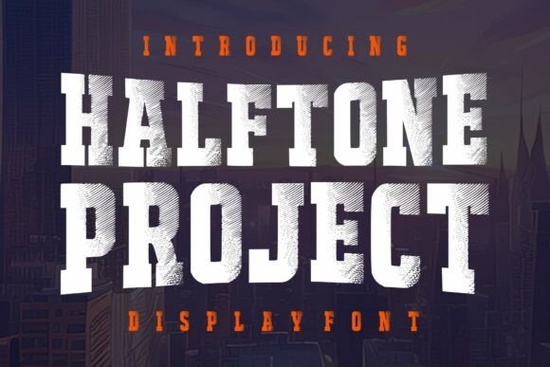
Halftone Project Font is a standout choice for designers looking to add a vintage, industrial flair to their work. This bold slab serif font combines strong, blocky letterforms with a unique halftone texture that mimics traditional printing methods. The result is a typeface that feels both classic and modern, perfect for creating eye-catching headlines and impactful designs.
The Halftone Project font is ideal for projects that need a strong visual presence. Its textured appearance adds depth and character, making it stand out in both digital and print formats. Whether you're working on a poster, logo, or social media graphic, this font can help elevate your design with its distinctive style. It works especially well when paired with clean backgrounds, allowing the intricate dot patterns to take center stage.
Designed with creatives in mind, Halftone Project is suitable for a wide range of applications. From sports branding and university merchandise to “lo-fi” aesthetic designs, this font brings a sense of history and authenticity to any layout. Its retro-industrial feel makes it a great fit for vintage or retro-themed projects, while its bold nature ensures it remains relevant in contemporary design trends.
What Makes Halftone Project Unique?
One of the key features of Halftone Project is its built-in halftone effect. Unlike other fonts that require additional textures or overlays, this typeface includes the halftone pattern directly in its design. This means you can use it straight out of the box without extra steps, saving time and effort in your workflow.
The font’s slab serif shapes give it a strong, confident look, while the halftone dots add a layer of complexity and visual interest. This combination creates a balance between simplicity and detail, making it versatile enough for different design styles. Whether you're going for a clean, minimalist approach or something more intricate, Halftone Project can adapt to your needs.
Another advantage of this font is its scalability. It shines best at larger sizes where the halftone details are fully visible. This makes it an excellent choice for large-format designs like posters, banners, and signage. However, it can also be used effectively in smaller contexts, such as headings or logos, where its boldness still makes an impact.
Best Uses for Halftone Project
Halftone Project is particularly effective in designs that aim to evoke a nostalgic or analog feel. It’s commonly used in sports branding, where its bold and energetic style aligns well with team identities. For small businesses and print-on-demand sellers, this font can help create memorable logos and merchandise that stand out from the crowd.
Crafters and creative hobbyists will find value in using this font for custom t-shirts, stickers, and other printed items. Its retro aesthetic fits well with handmade or artisanal products, adding a touch of vintage charm. For editorial layouts, the font can be used to highlight headlines or section titles, drawing attention and guiding the reader’s eye through the content.
Designers working on social media graphics can also benefit from Halftone Project. Its striking appearance makes it ideal for posts, covers, and promotional materials that need to capture attention quickly. The font’s texture adds a level of sophistication that can make digital content feel more dynamic and engaging.
How to Use Halftone Project Effectively
To get the most out of Halftone Project, consider the following tips:
- Use it at larger sizes to fully showcase the halftone details.
- Pair it with simple backgrounds to let the font’s texture stand out.
- Experiment with color to enhance the vintage feel or create a modern twist.
- Combine it with other fonts for contrast and visual balance.
When using this font, keep in mind that its bold nature may not be suitable for long paragraphs. It’s best reserved for headlines, titles, and short phrases where its impact can be felt without overwhelming the design.
Whether you're a designer, crafter, or small business owner, Halftone Project Font offers a powerful way to express your creative vision. Its unique blend of vintage charm and modern design makes it a valuable addition to any toolkit.
Before finalizing your design, make sure to test the font in different sizes and contexts. This will help you understand how it performs in real-world scenarios and ensure it meets your specific needs. With a little experimentation, you can unlock the full potential of this distinctive typeface.